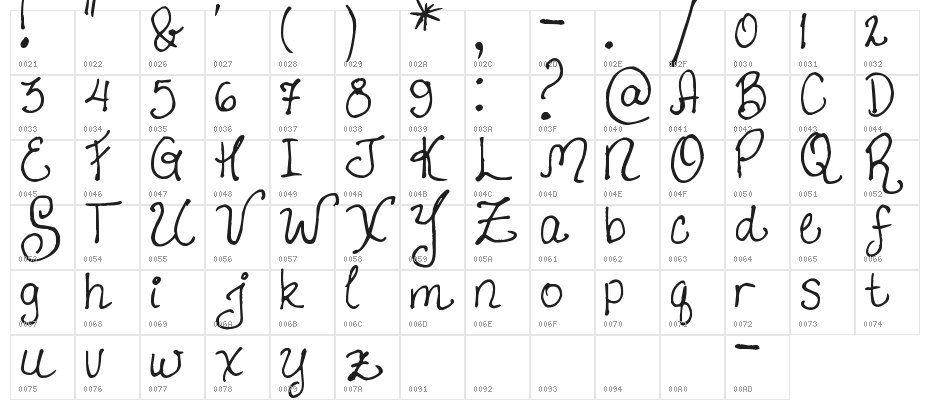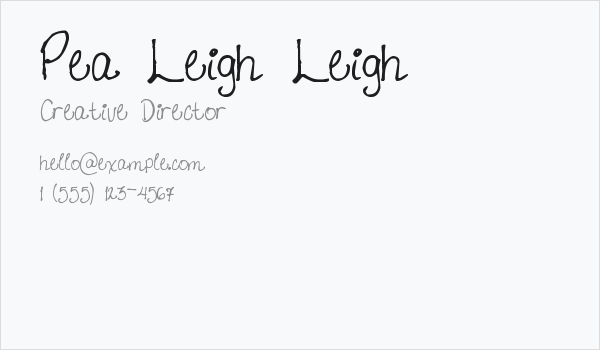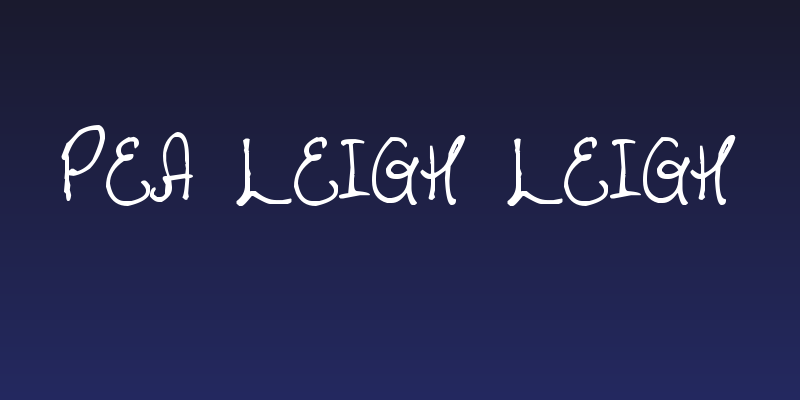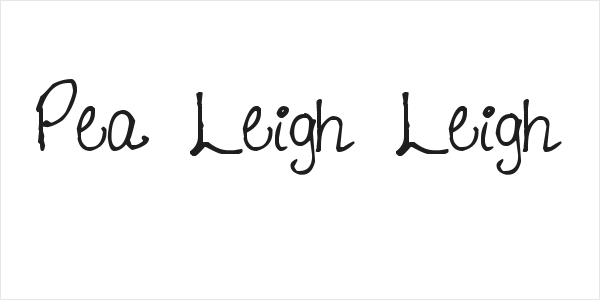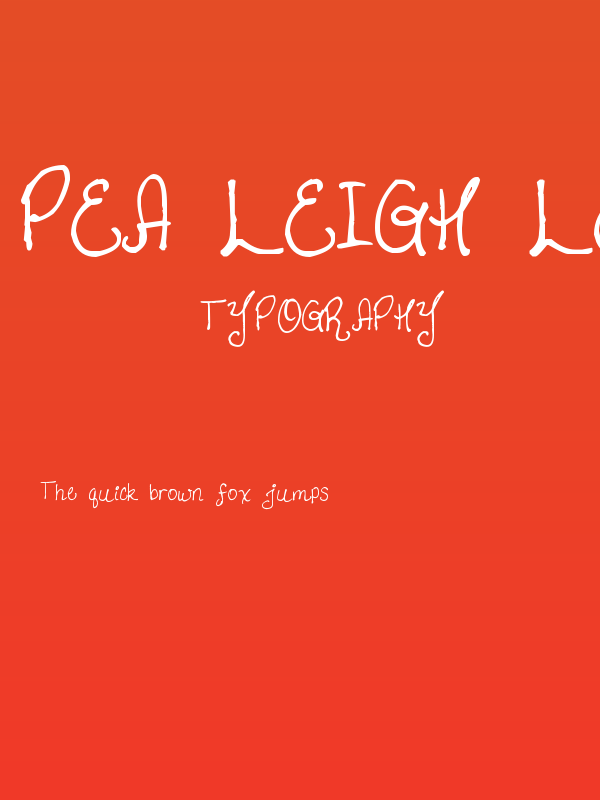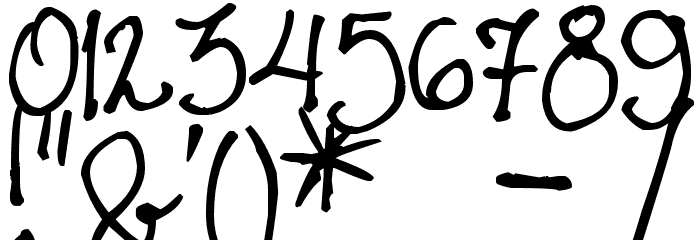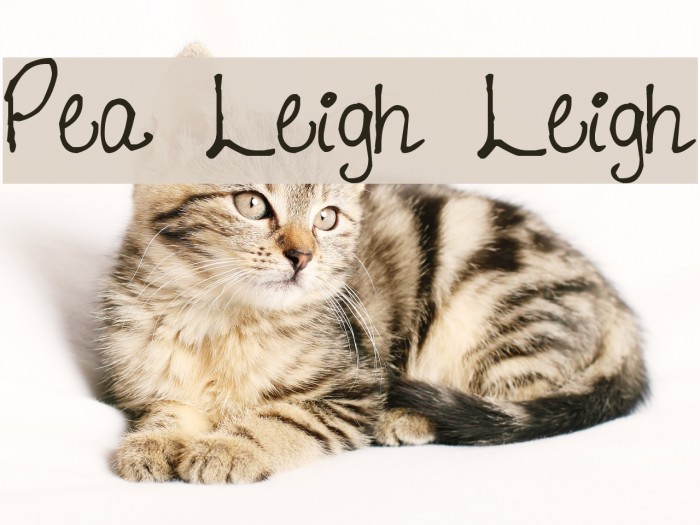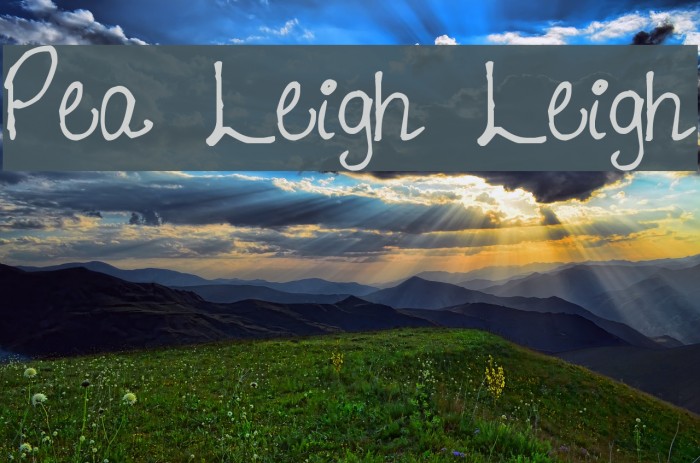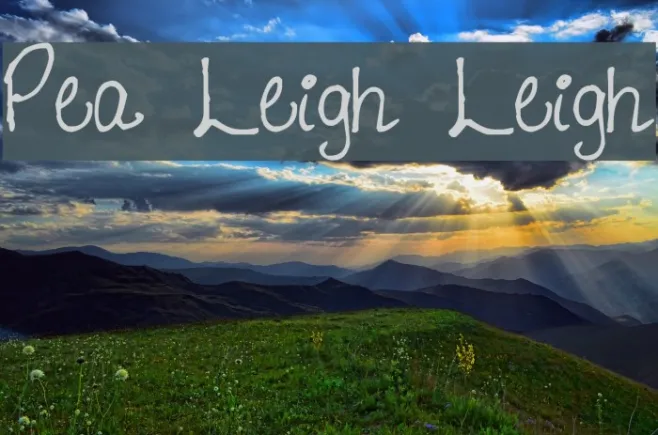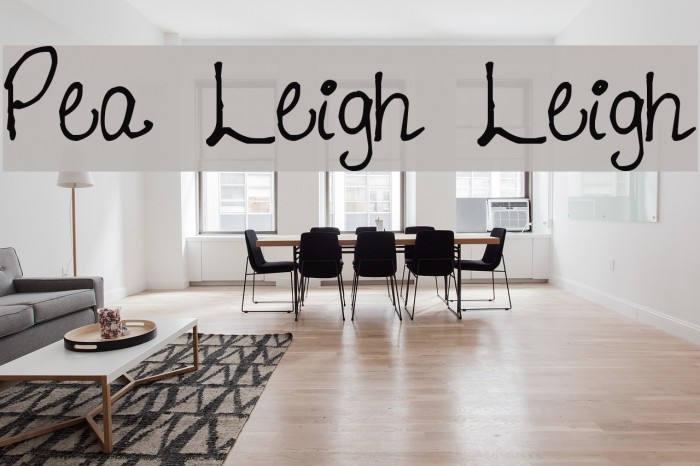
Pea Leigh Leigh Font
Pea Leigh Leigh Description
This font exudes a playful and whimsical charm, characterized by its handwritten style that mimics the fluidity and spontaneity of casual penmanship. The letters are slightly irregular, adding a personal touch that feels both approachable and friendly. The strokes vary in thickness, giving it a dynamic and lively appearance. The uppercase letters maintain a consistent height, while the lowercase letters exhibit a slight slant, enhancing the informal aesthetic. Numbers and special characters are crafted with the same playful spirit, ensuring a cohesive look across all elements.
| Overall Style | Casual |
| Use Case | Headlines, Logos, Informal Text |
| Proposed Projects | Ideal for greeting cards, children's books, personal blogs, and creative branding projects. |